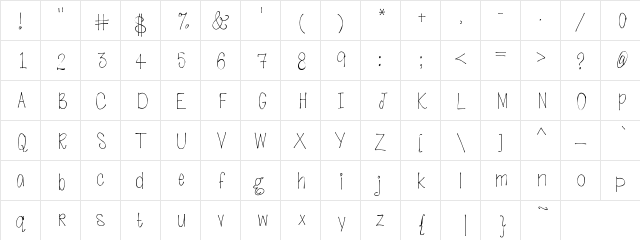
goingtodogreatthings Medium Font Preview
goingtodogreatthings Medium
Design Context for goingtodogreatthings Typeface
goingtodogreatthings takes a measured approach to typography — its balanced proportions and neutral character make it a reliable workhorse for both digital and print work. Its slender proportions lend an understated elegance to any composition.